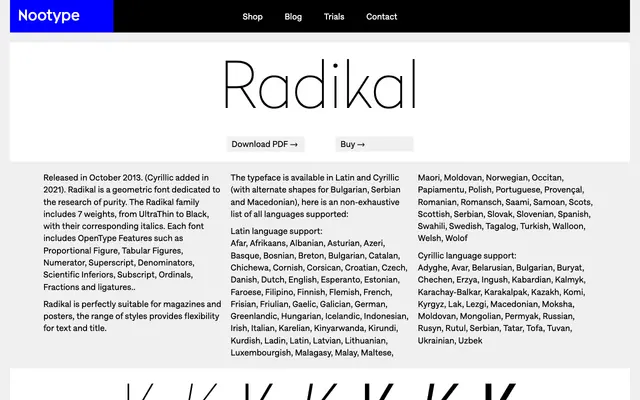
Radikal
A geometric sans in seven weights with matching italics, covering Latin and Cyrillic for editorial and display use.
Released in 2013 with Cyrillic added in 2021, this geometric sans spans UltraThin to Black with corresponding italics, giving fourteen styles in total. The design is oriented around formal purity, with each font carrying a full set of OpenType features including fractions, superscript, tabular figures and ordinals. Cyrillic coverage includes alternate shapes for Bulgarian, Serbian and Macedonian, broadening its reach across Eastern European markets.
Described explicitly as geometric, with a focus on purity of form. The clean, constructed letterforms and wide weight range are characteristic of the geometric sans tradition.